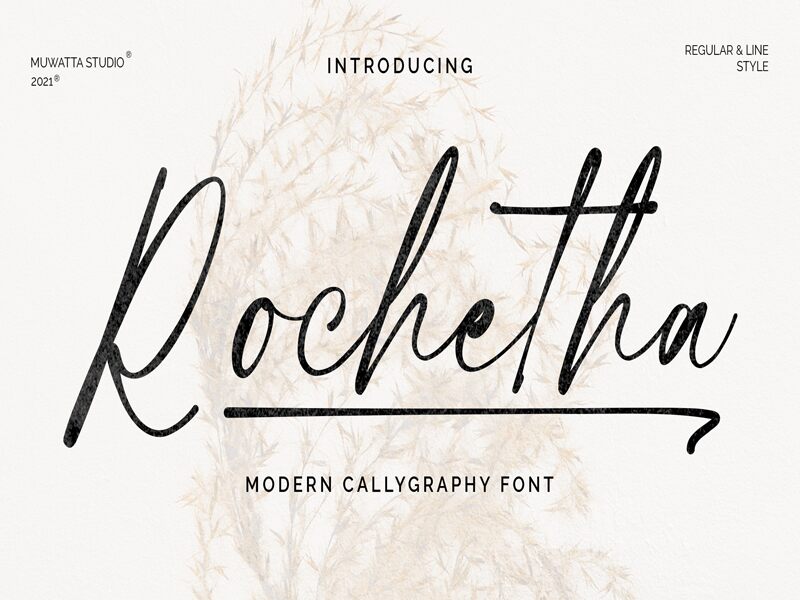
Rochetha, the semi-light, semi-condensed handwritten font designed by Muwatta Studio is here to add a touch of whimsy to your projects. With its playful yet refined style, Rochetha is perfect for invitations, greeting cards, branding materials and social media graphics. Its unique handwritten appearance adds a personal touch to any design, while its semi-condensed width makes it perfect for typography-heavy projects such as magazines and websites. Whether you're working on a wedding invitation or a website redesign, Rochetha's charming style is sure to elevate your project and grab the attention of your audience.